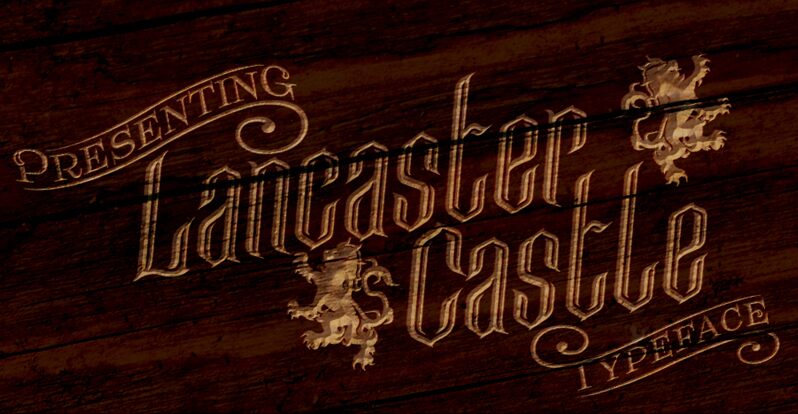
Lancaster Castle, designed by Jonathan Swinn, is a modern take on the classic gothic font type. With its semi-light weight and extra-condensed width, it's perfect for projects that require an edgy yet refined touch. From album covers to movie posters and everything in between, Lancaster Castle adds a unique flair to any design. Its sleek lines and sharp angles make it ideal for fashion brands or tech companies looking to stand out from the crowd. Don't settle for boring typography - choose Lancaster Castle for an eye-catching look that commands attention.